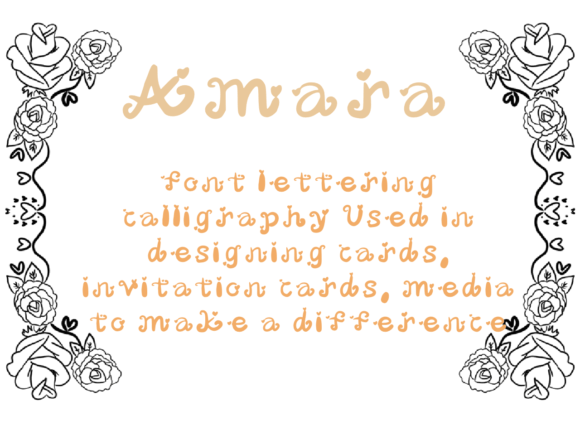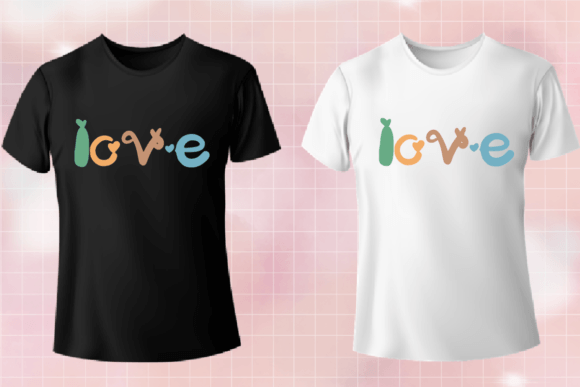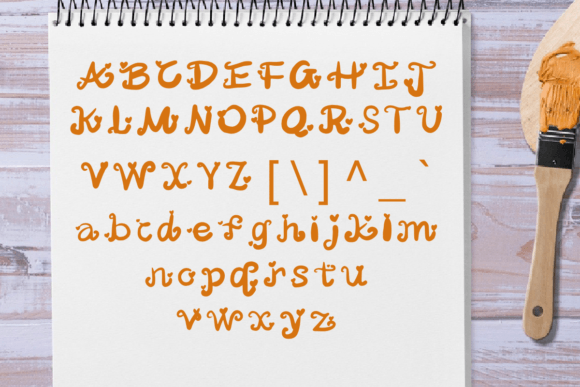
Discover the Elegance of Amara Font: Elevate Your Designs with a Touch of Sophistication
Are you on the hunt for a font that exudes elegance, sophistication, and a dash of modern flair? Look no further than the Amara Font. This exquisite handwritten font is meticulously crafted to capture the essence of classy calligraphic influences while maintaining a fresh and contemporary feel. Whether you’re a designer, crafter, or simply someone who appreciates the art of typography, Amara is sure to become your new favorite.
The Perfect Blend of Classic and Modern
Amara Font strikes the perfect balance between traditional calligraphy and modern design sensibilities. Its flowing lines, delicate strokes, and intricate details evoke a sense of nostalgia and luxury, reminiscent of high-end brands and bespoke designs. Yet, its clean and crisp aesthetic ensures it remains highly legible and versatile, suitable for a wide range of applications.
What Makes Amara Font Stand Out?
- Unique Character: Amara boasts a distinct personality that sets it apart from more generic fonts. Its handwritten nature gives it a personal touch, making it ideal for projects where you want to convey warmth and authenticity.
- High Versatility: From elegant wedding invitations and sophisticated branding materials to stylish blog posts and captivating social media graphics, Amara’s flexibility knows no bounds.
- Easy to Read: Despite its ornate appearance, Amara maintains excellent readability, ensuring your message is conveyed clearly and effectively.
Applications of Amara Font
The possibilities with Amara are endless. Here are a few ideas to get you started:
- Branding and Logo Design: Use Amara to create a memorable brand identity that stands out from the competition.
- Wedding and Event Planning: Add a touch of elegance to your wedding invitations, menus, and event signage.
- Digital Content Creation: Elevate your blog posts, social media graphics, and email newsletters with a sophisticated and engaging font.
- Packaging and Product Design: Make your products stand out on store shelves with beautiful, custom packaging.
Tips for Using Amara Font Effectively
To make the most of Amara, consider the following tips:
- Pair with Neutrals: Combine Amara with neutral fonts for body text to create visual harmony and ensure readability.
- Experiment with Colors: While Amara looks stunning in black, don’t be afraid to experiment with colors that match your brand’s palette.
- Adjust Letter Spacing: For optimal results, tweak the letter spacing to enhance readability and aesthetic appeal.
In the world of typography, Amara Font is a gem that offers the perfect blend of elegance, versatility, and modernity. Whether you’re working on a personal project or a professional assignment, Amara is sure to elevate your designs to new heights. So why wait? Fall in love with Amara and bring your creative visions to life with a font that truly understands the art of beautiful writing.